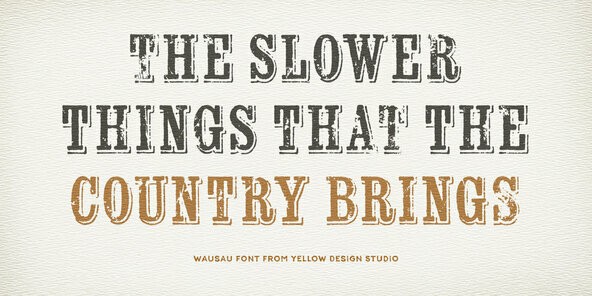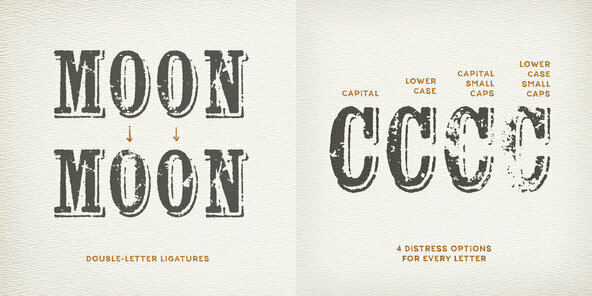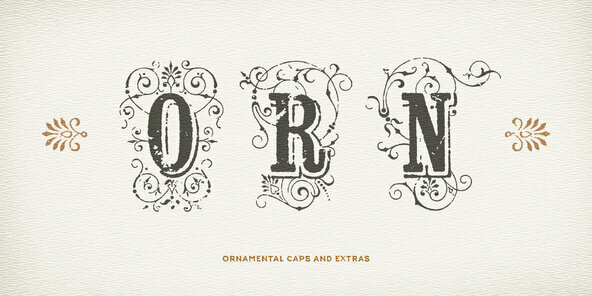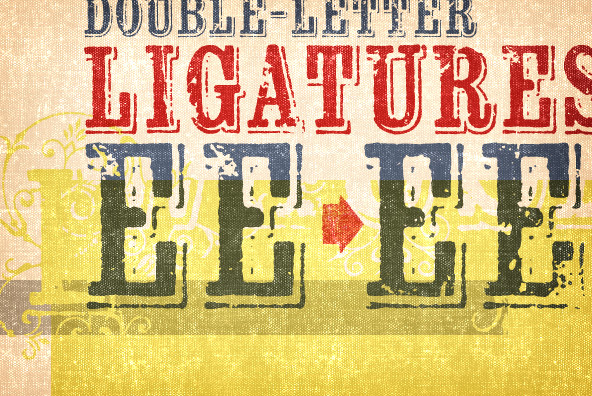
Wausau is a grungy, shadowed serif from Yellow Design Studio with a vintage letterpress feel. It’s worn and weathered and full of texture and charm. Each letter has 4 different distress options which can be mixed and matched for variety and realism. Features include double-letter ligatures to eliminate duplicate distressing in adjacent characters, a complete set of ornamental caps, and an extra set of vintage ornaments and flourishes.